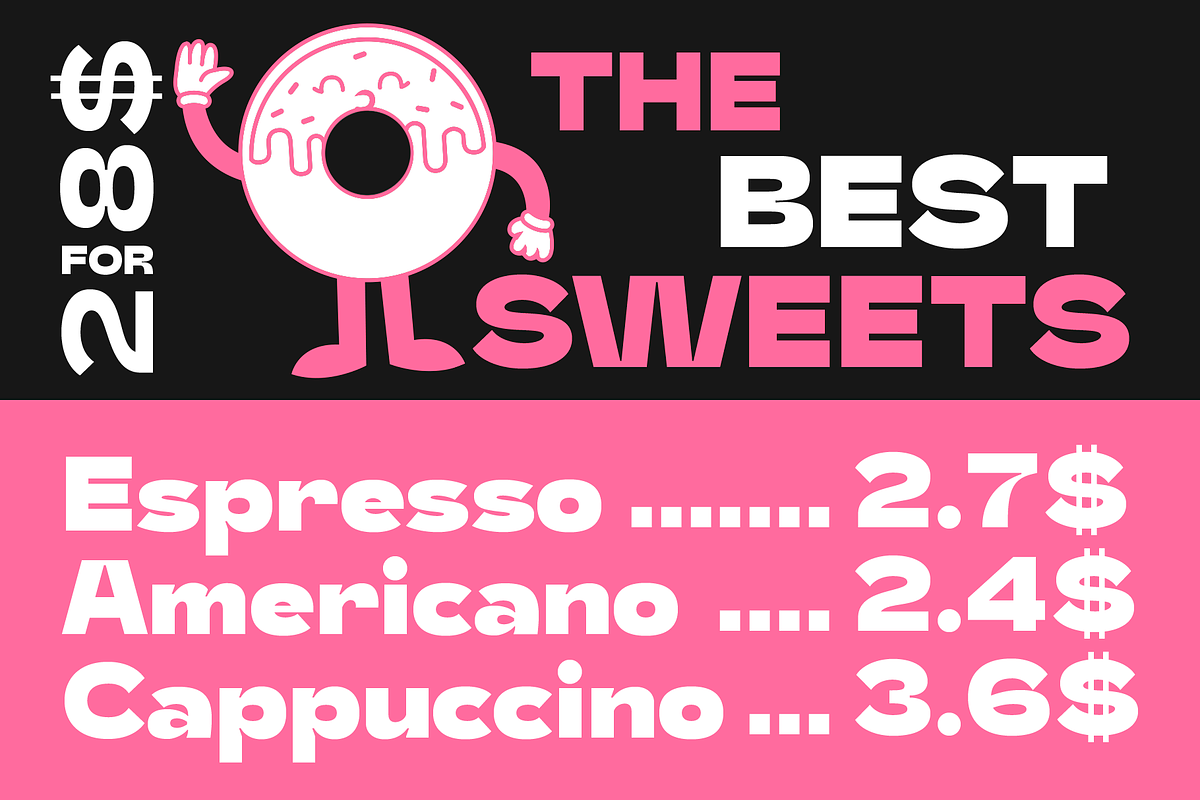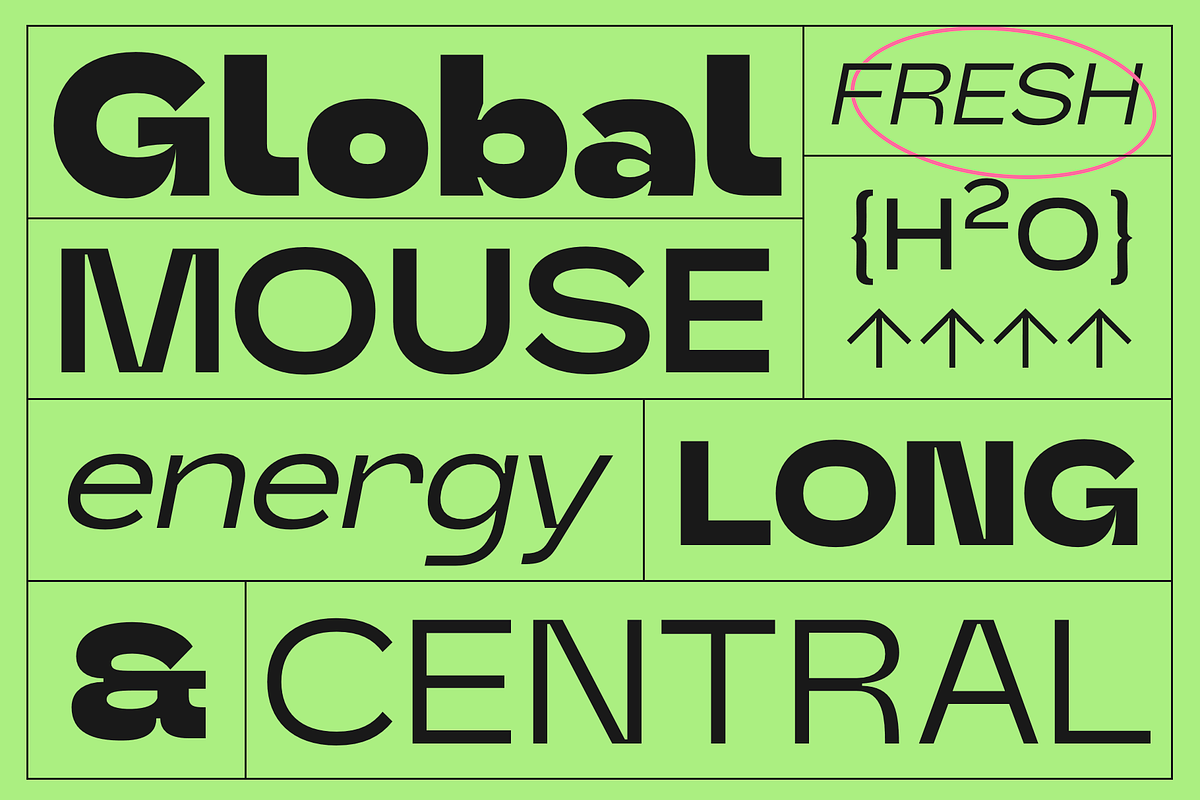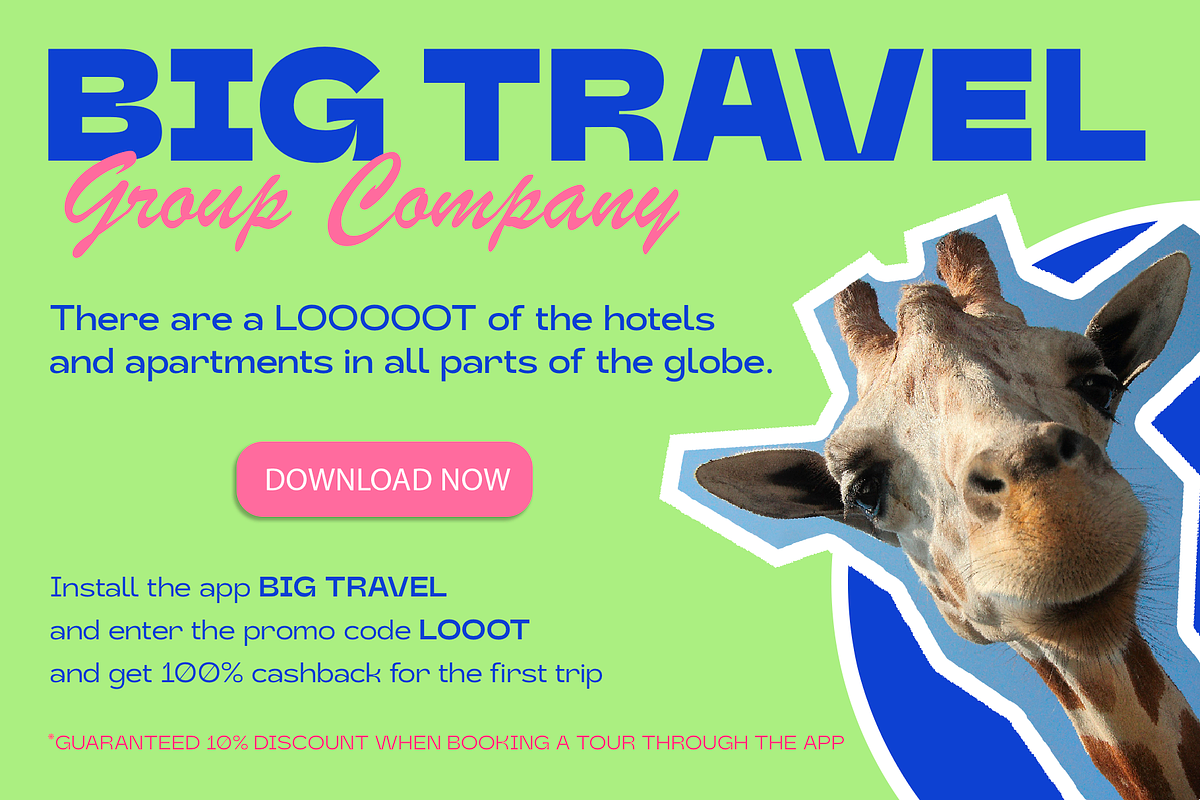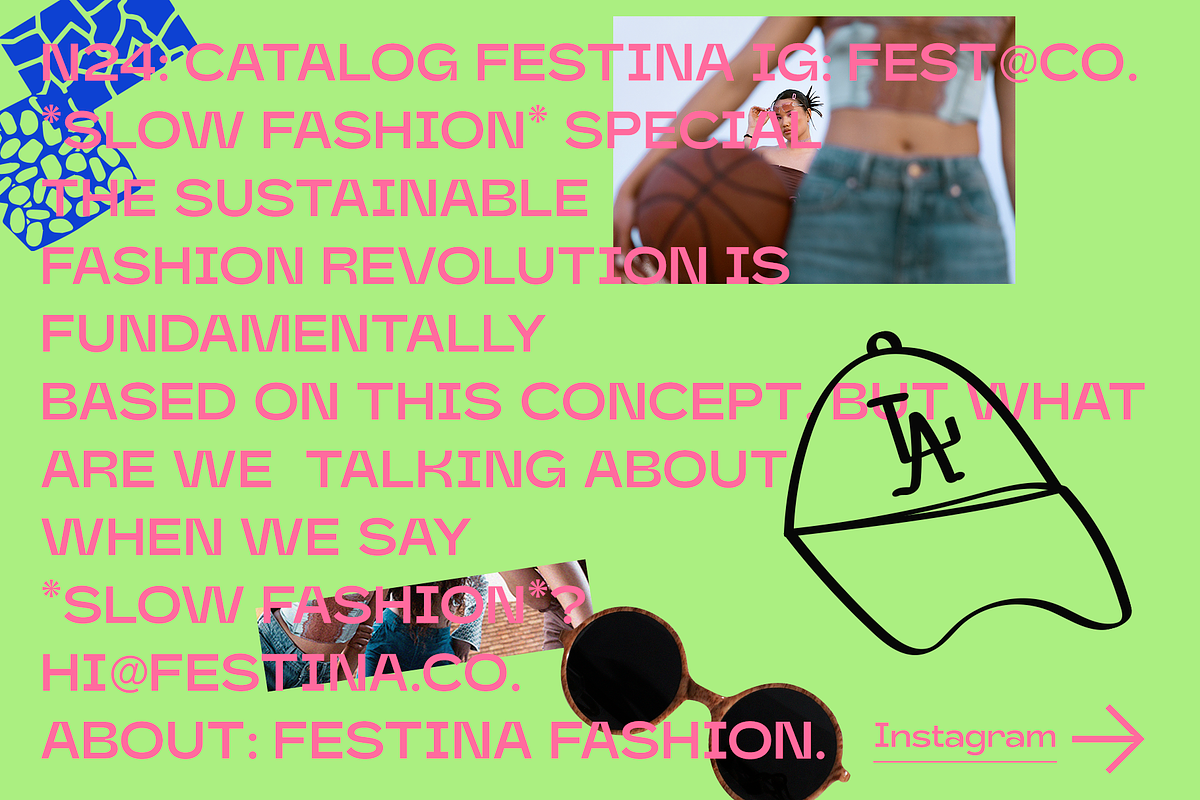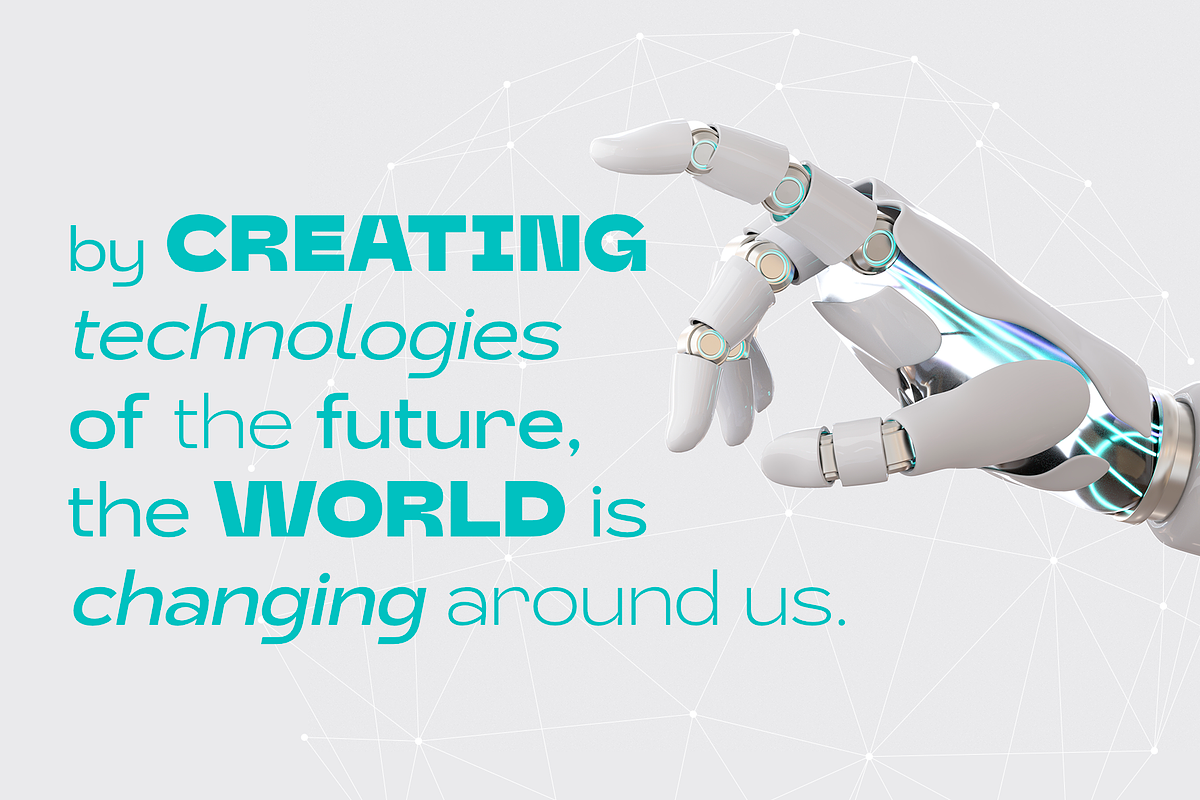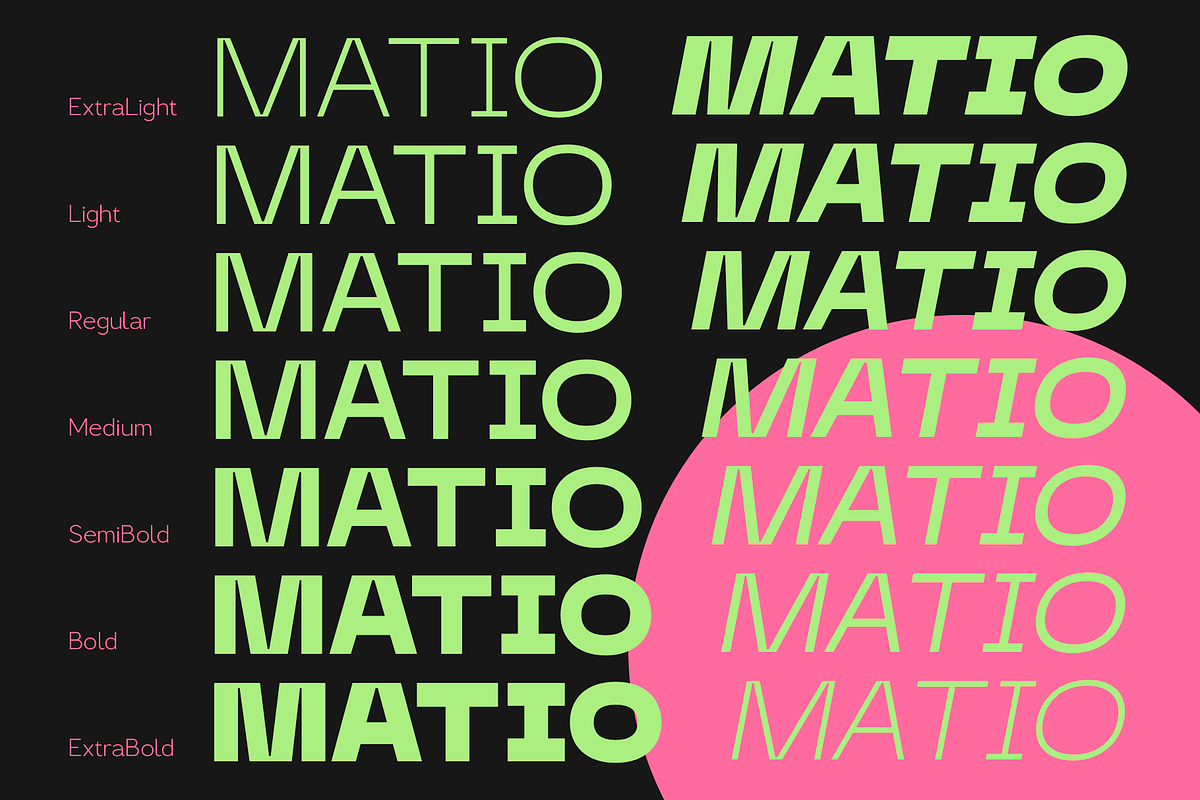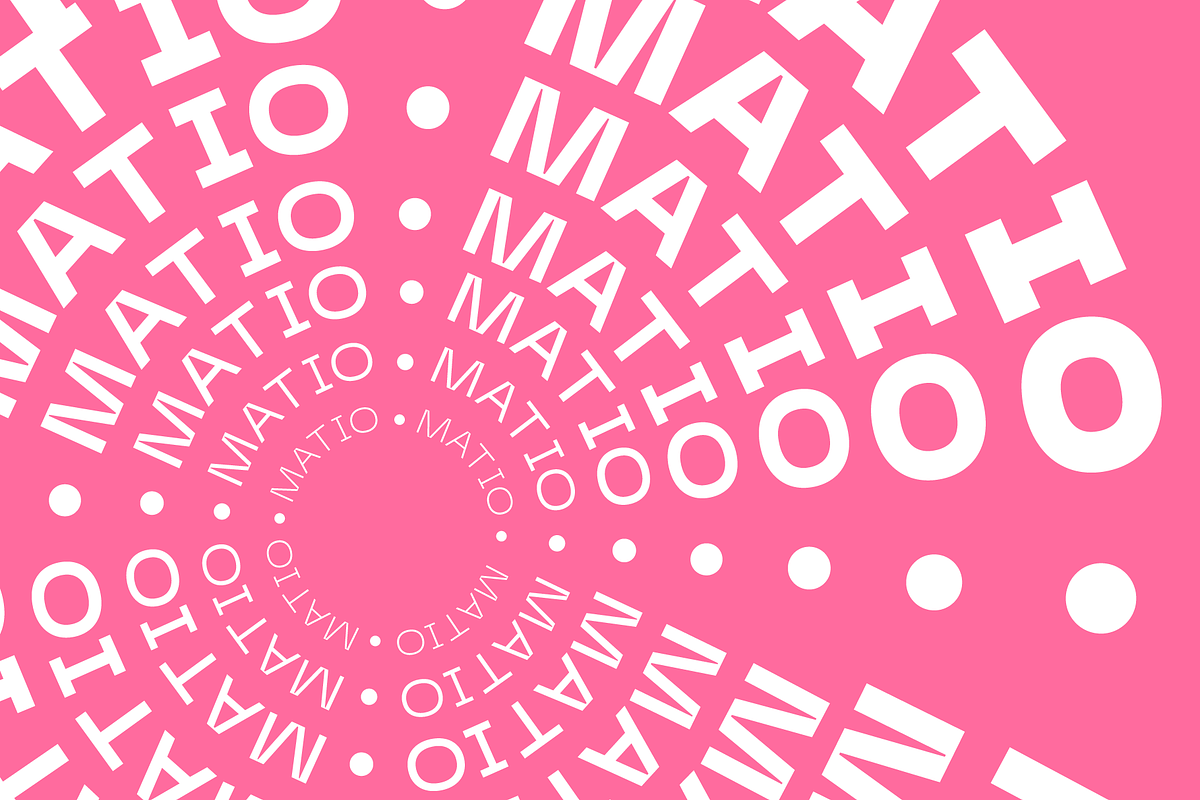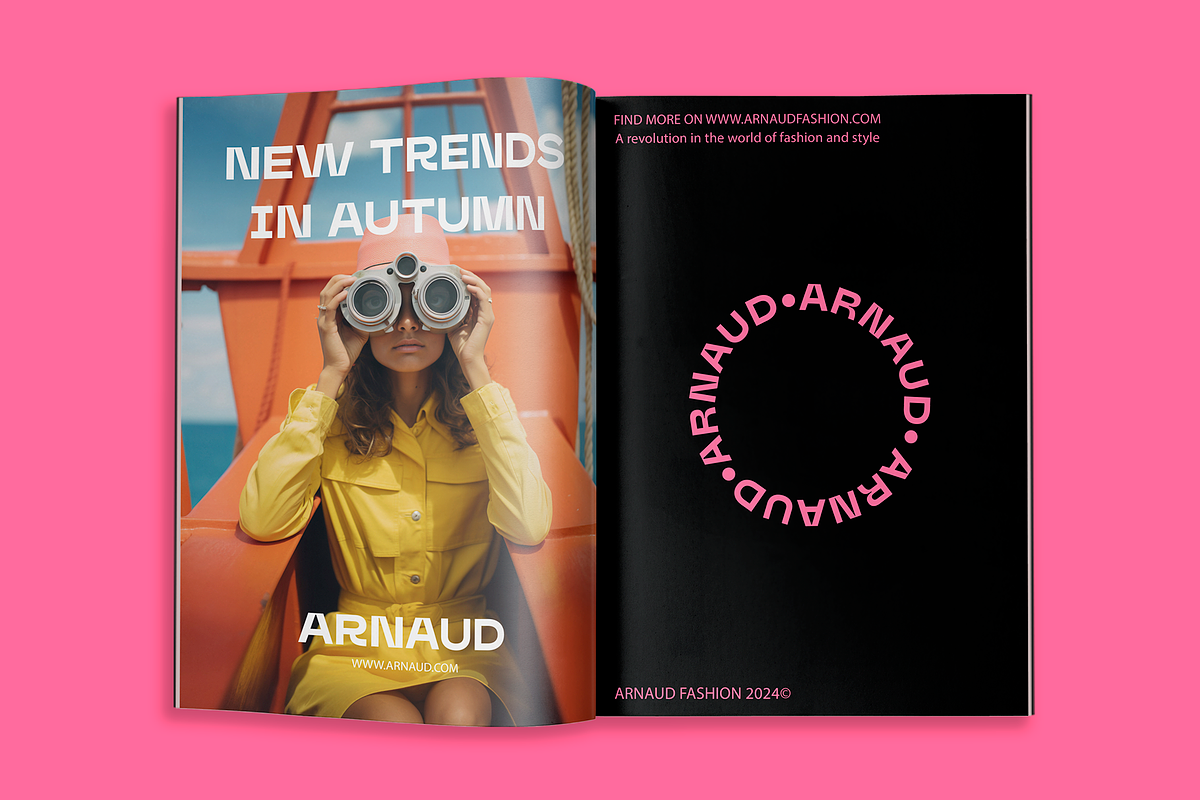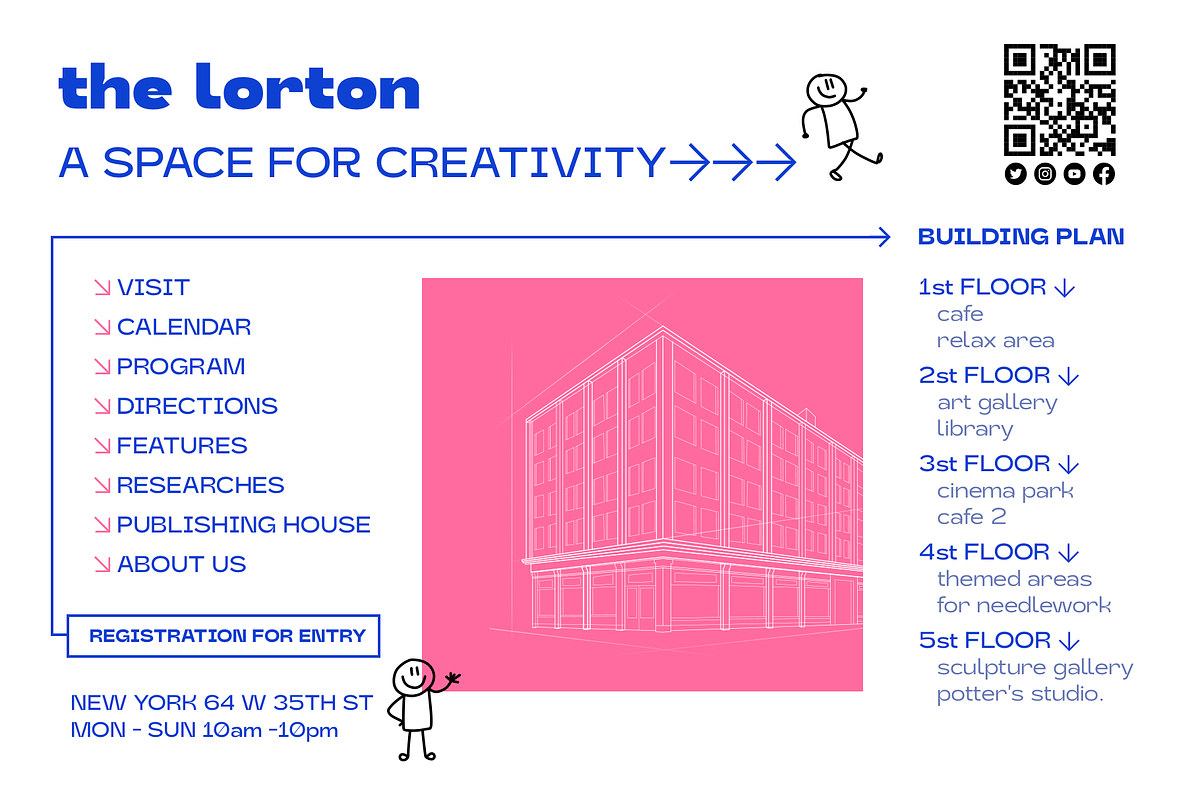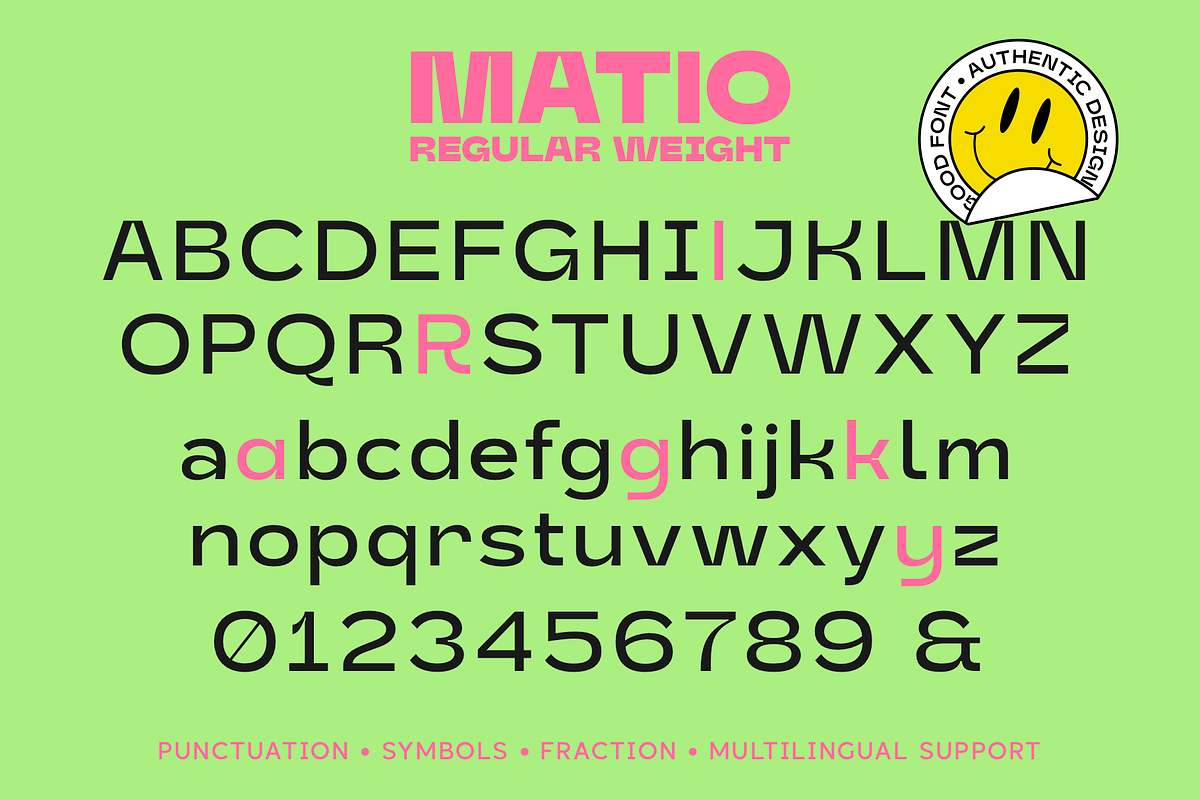
Matio | Font Family
Matio This is a modern and dynamic Sans Serif font family. The main task in creating this font was to create a modern, easy-to-read, universal and authentic font, and this task has been completed!
This font includes 7 weight and italics to them. It looks great in headlines and small texts, will perfectly cope with a variety of typographic tasks and will always look stylish and modern.
Following international symbols support: ÀÁÂÃÄÅĄÇĆÈÉÊËĘÌÍÎÏÐÑŃŁÒÓÔÕÖØÙÚÛÜŚŠŸÝŹŻŽßàáâãäåçèéêëìíîïðñòóôõöøùúûüýÿąćęłńśšźżž
Full alphabet with Uppercase and Lowercase A-z
Alternates for Uppercase "I,R"
Alternates for lowercase "g,k,y"
Numbers, fractions
Punctuation and symbols